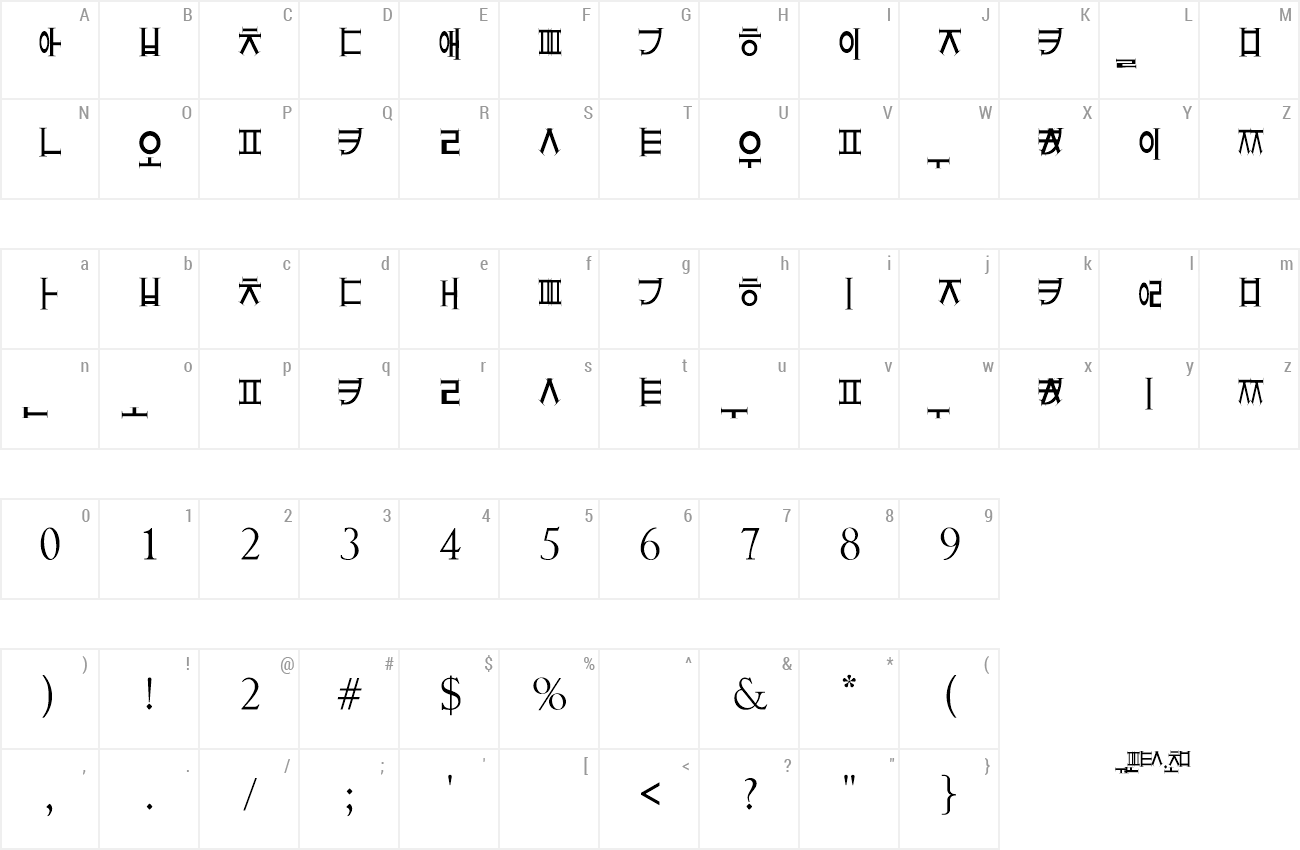
List Of Hangul Fonts References. English chinese (hanja) japanese (hirigana and katakana) numbers math (and other) symbols and wingdings There are three categories of jamo:
Unlike The Japanese And Chinese Writing.
This website is aiming to be the first choice for finding free. Hangul (word processor) shipped with fonts from hanyang information and communication, which map obsolete hangul characters with unicode's private use areas. There are three categories of jamo:
Archive of freely downloadable fonts. Blazeface hangeul | adobe fonts blazeface hangeul designed by minjoo ham. Hangul (hangeul) hangul is the national script of korea.
You can use this font for both personal & commercial. “pro” hangul fonts (like the one above) also include: Hangul is suitable for posters, headlines, logos, branding and other creative projects.
Hangul Font Is High Quality Modern Font, Designed By Velvetyne Type Foundry.